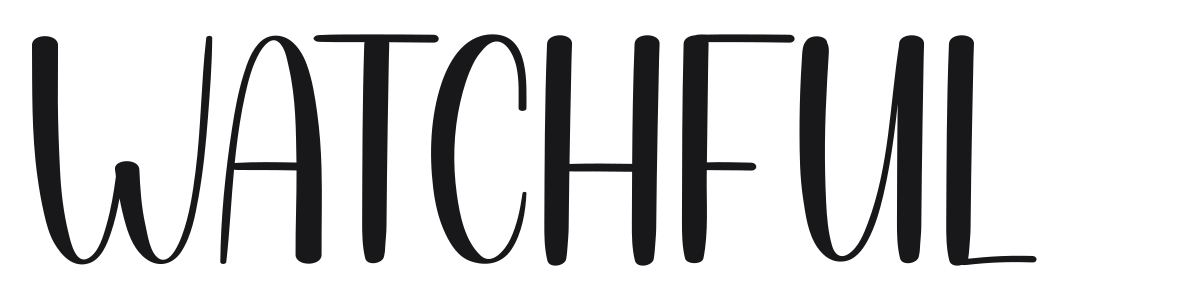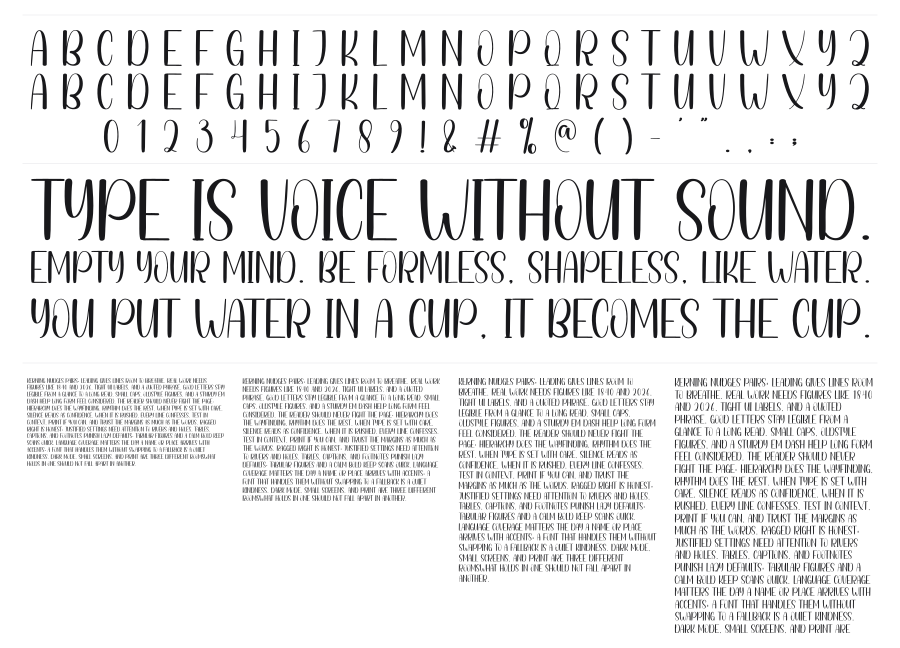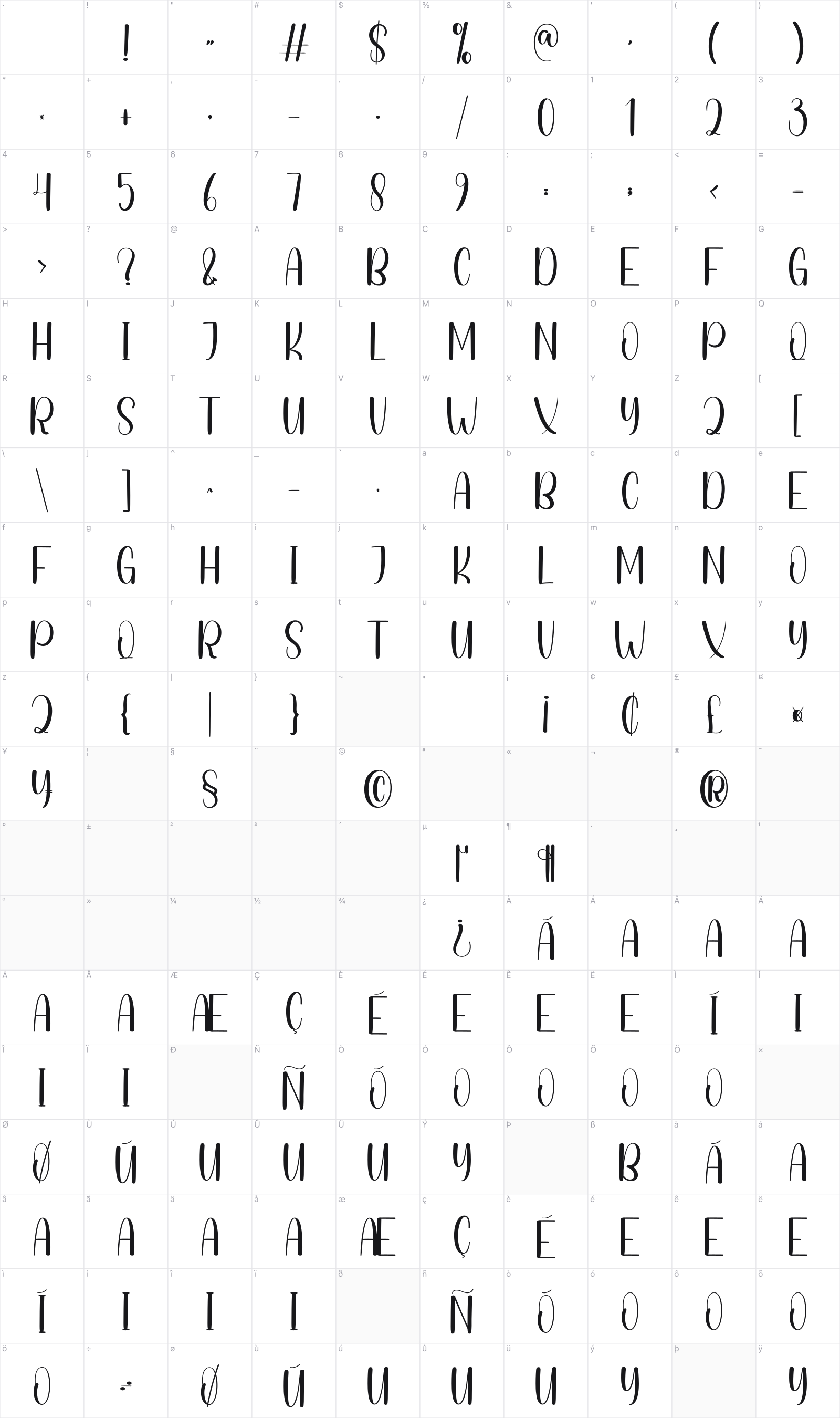
Watchful
Watchful is a tall, condensed display font with dramatic stroke contrast and a hand-lettered warmth that sits somewhere between art deco and modern calligraphy. The mix of hairline thins and bold stems gives it an elegant structure while the slightly quirky character shapes keep it light and approachable. It works best large, on wedding stationery, packaging, and anywhere a feminine, celebratory tone is needed.